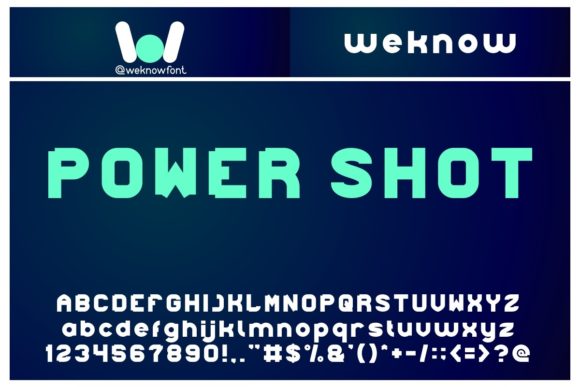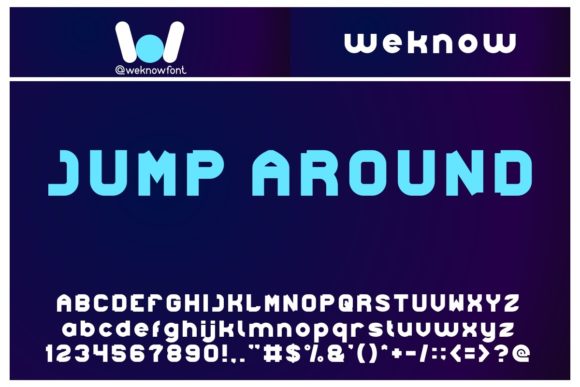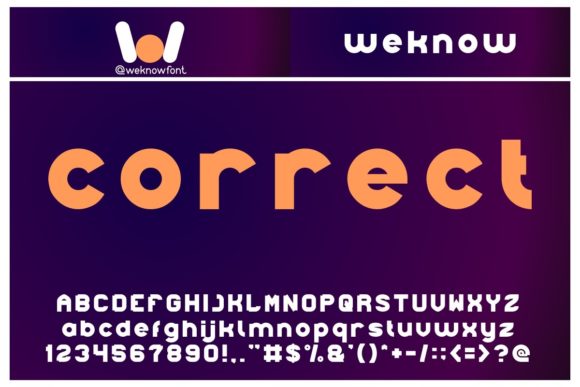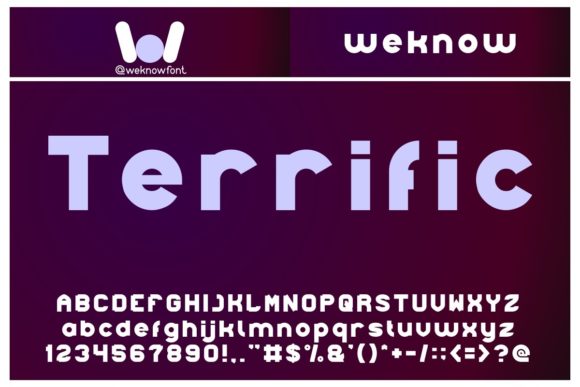
Unleashing Creativity with the Canon Ball Font
Remember the rush of excitement when you stumble upon the perfect font for your next design project? It’s like finding a missing puzzle piece that brings your entire concept to life. For designers, the search for that elusive font can be a thrilling adventure, and we’re here to introduce you to the Canon Ball Font – a display font that’s sure to elevate your creative endeavors.
The Canon Ball Font is a versatile and cool display font designed to make a statement in various design projects, from logos and logotypes to headlines and corporate identities. Its unique character makes it an ideal choice for the apparel industry, posters, music, movies, games, magazines, books, comics, and even online platforms like YouTube and Instagram. Whether you’re a seasoned designer or just starting out, the Canon Ball Font is a valuable addition to your toolkit, offering endless possibilities for creative expression.
Canon Ball Font Key Features
- Font Family: Canon Ball is a sans-serif font family designed for digital use.
- Unique Characteristics: Canon Ball features a clean, modern design with rounded corners and a subtle flair to the letterforms, making it ideal for digital applications such as signage, wayfinding, and user interface design.
Designer Review: Canon Ball Font
Overall, I think the Canon Ball Font is a unique and intriguing typeface. ✨ Its bold and rounded design elements give it a fun, energetic vibe that’s perfect for projects that need a bit of whimsy. The font’s weight distribution is well-balanced, making it easy to read even at smaller sizes.
Here are some things that work well about the Canon Ball Font:
- ✨ Great for headings and titles: The font’s boldness and rounded edges make it perfect for grabbing attention.
- ✨ Versatile: Canon Ball Font can work well in a variety of contexts, from branding and advertising to digital design and print materials.
- ✨ Easy to customize: The font’s rounded design elements make it easy to create custom variations and tweaks.
- ⚠️ Limited language support: The font may not support certain languages or character sets, which could limit its usability in global projects.
- ⚠️ Not ideal for formal or professional contexts: The font’s playful design may not be suitable for more formal or professional projects.
Overall, I think the Canon Ball Font is a great choice for projects that need a bit of personality and flair. Just be sure to consider its limitations and use it thoughtfully.
Use Canon Ball Font for creative and eye-catching designs, such as:
– Event invitations
– Branding materials
Remember to pair Canon Ball Font with a clear and concise message to ensure effective communication.